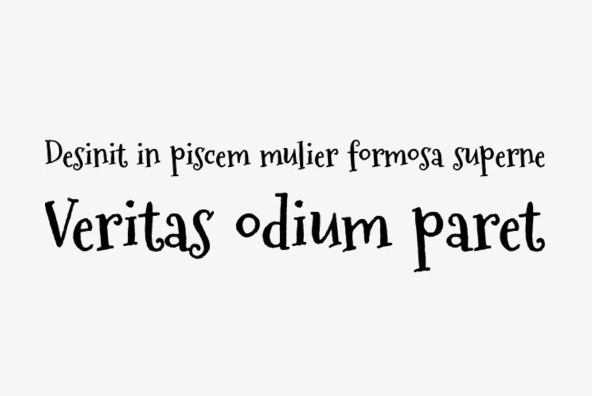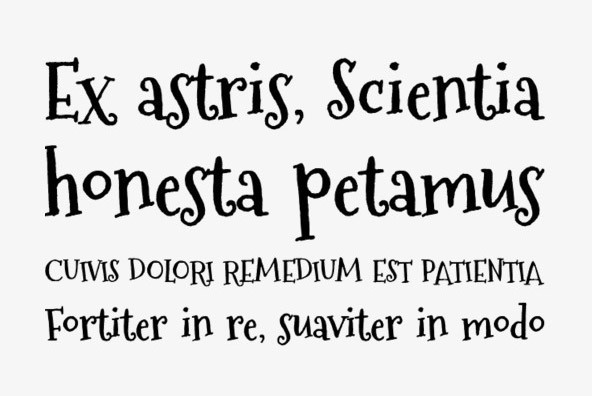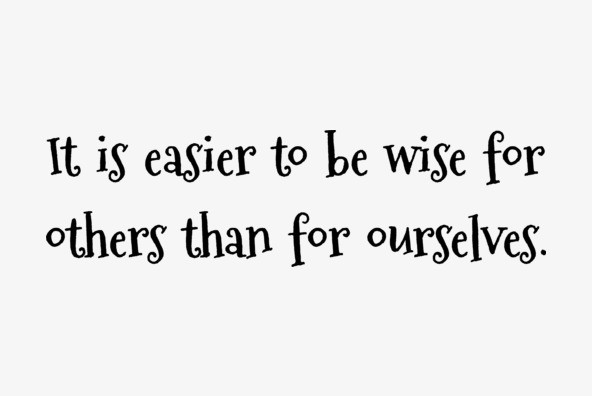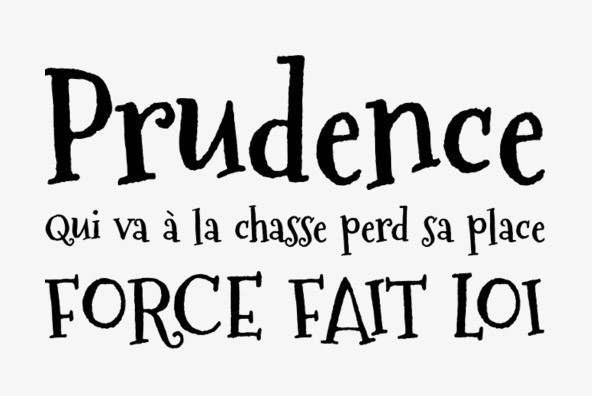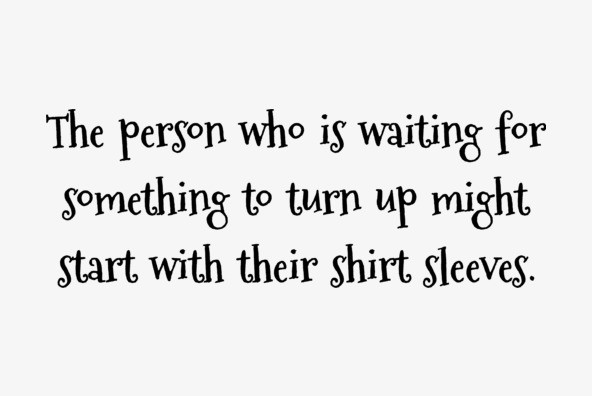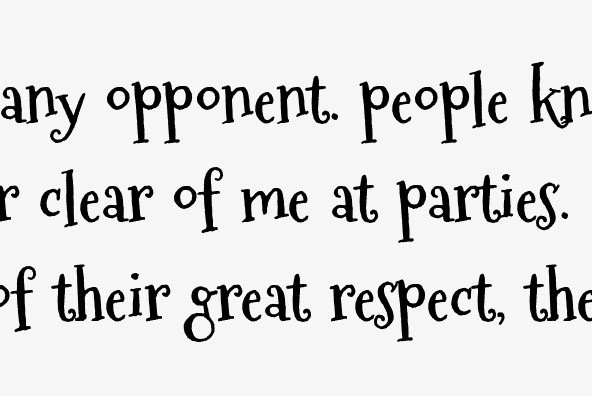
Sugarplum Sweet
Foundry: Tart Workshop
Let visions of Sugarplum dance in your head with its playful carefree spirit! Use Sugarplum when you want to be nice or Sugarplum Sweet when you want something more sassy and bold! Both fonts feature a full range of alternate letterforms and automatic ligatures available in dynamic OpenType.